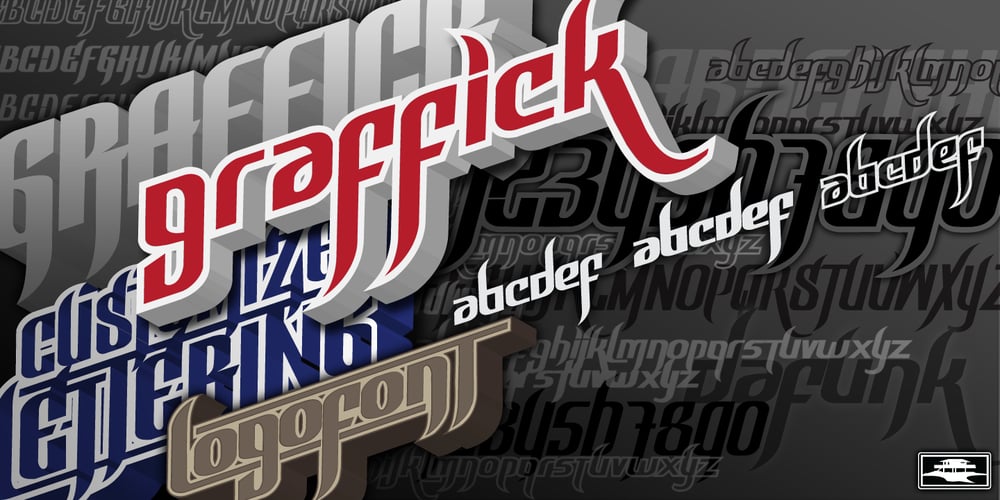
Graffick Font Family was designed by Matthew Napolitano and published by Graffiti Fonts. Graffick contains 5 styles and family package options. Graffick is a mechanical style created by merging a little traditional type design & typography with a little basic graffiti lettering theory. Extra ascenders and descenders have been added to many of the capital letters to add a more varied & specialized appearance. This layered type system provides for the easy creation of outline/fill effects with regular, italic, wide and outline styles as well as baseline & caps-height alignment options.